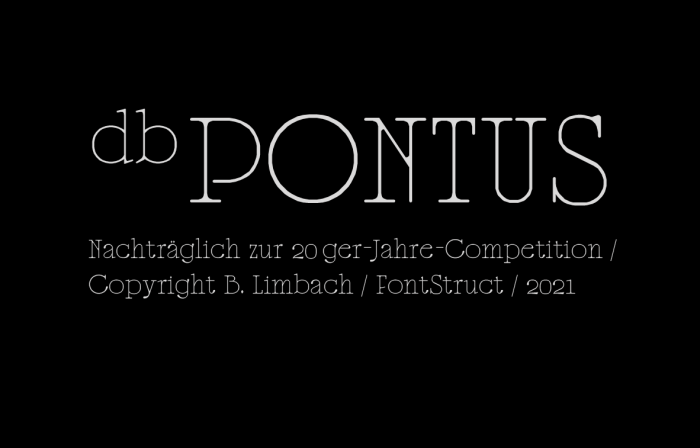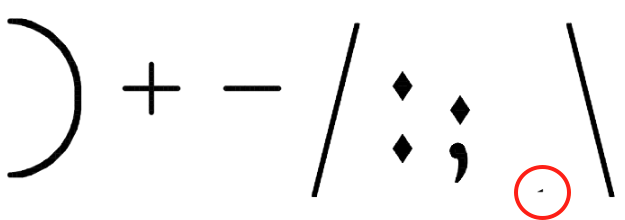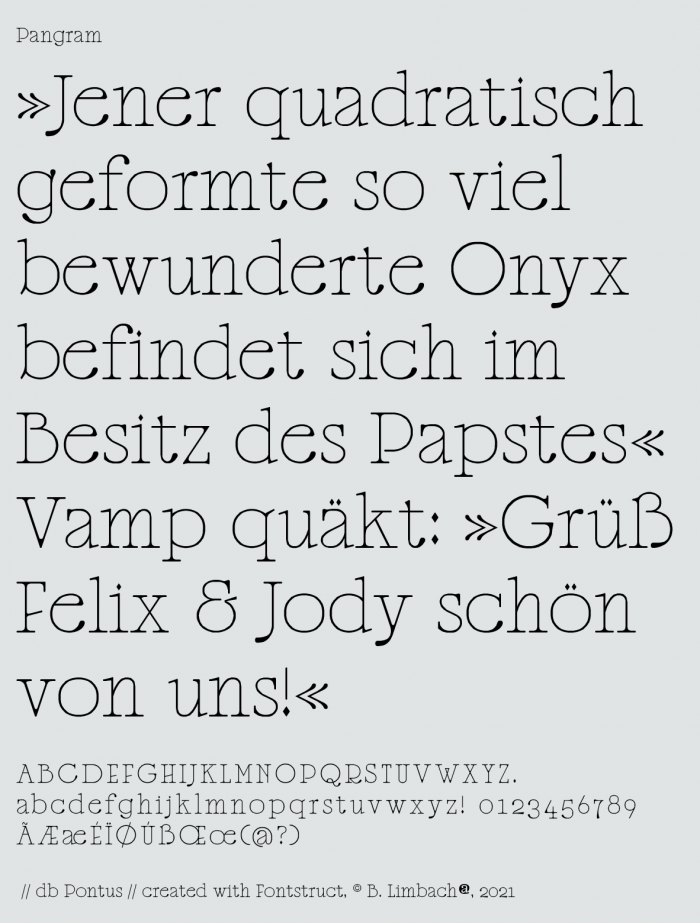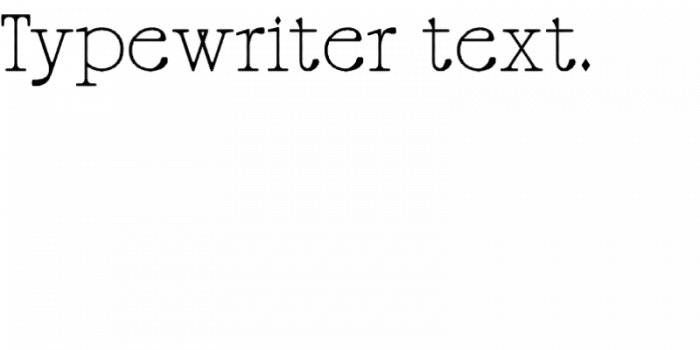
db Pontus
by beate
First try.
This design was created as part of the TwentiesComp. Too bad, due to lack of time, it was not finished.  I realize db Pontus still needs a bit of time and patience to be ready (glyphs, kernig etc...) However, I just want to introduce db Pontus in this context already ; )
Classical proportions, sublime curves. db Pontus could have been the winning ticket to the competition. 10/10
Now zigourny sees in a mirror a much more beautiful sister. When you do this kind of thing, how can I stop loving it? ❤️!
I saw some lost bricks are on the left high side of your Ç. Still looking at this beauty.
And another one strange here.
@elmo Ah, thank you very much, I had the problem that some bricks were arbitrarily replaced by others. I guess one or the other brick slipped into places where it didn't belong!
@Frodo
Yes, maybe, but I just didn't finish. But I still wanted to move it forward : ) Thank you for your nice comment.
sehr schön und so elegant. 10/10
That's very beautiful!
Truly a fantastic design
"However, I just want to introduce db Pontus in this context already ; )"
I understand this sentiment perfectly. Your patience is still much greater than mine. Not to mention style, panache, vision, skill, etc. Excellent work as ever.
I am quite touched. Thank you very much for all your positive comments. Please let me know if you have any suggestions.
* Oh, Sorry - Of course I meant Dmitriy
Exemplary Work.
This font is very extremely astounding, astonishing, and wondrous.
Congrats on the TP, amiga!
I just adore this one
I like it so much i dont want it to sound disrespecting, if i mention one litle super tiny thing:
the bar of the lower case E appears to be a little too thick. is it?
*looks for cover
:D
I didn't take a closer look on this, so i could imagine it's because of the resolution you chose. Having this in mind, it seems also to be te only straight horizontal element in the whole set exept for the serifs. Maybe it could be a possibility to give it a slight diagonality to solve both anomalies. but these a just thoughts i share, chapeau for your work in general, you know that :) kisses
Wow, this one is an absolute gem! I'd typeset album covers with it.
Typewriter, + rhombus dot.